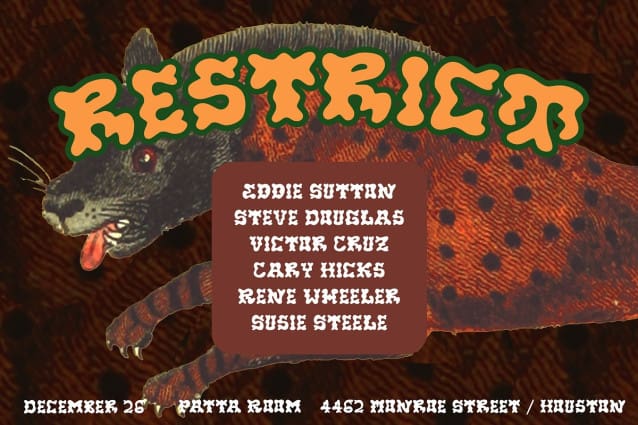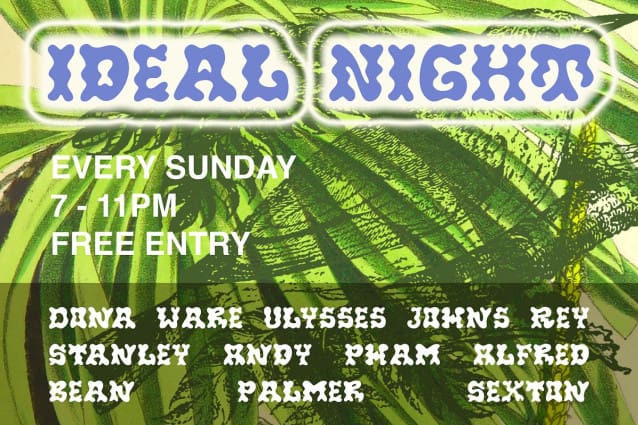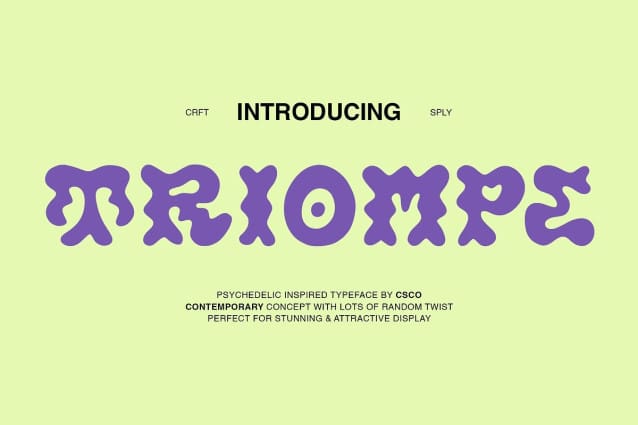
Triompe Display Font
Triompe Display Font – Psychedelic typeface. Triompe constructed by contemporary concept with lots of random twist to show trippy sensation. It is perfect for stunning and attractive display.
You want to make a greeting card or a package design, or even a brand identity, craft design, any DIY project, book title, poster, pop vintage design, retro design or any purpose to make your art/design project look pretty and trendy? Feel free to play with this typeface!